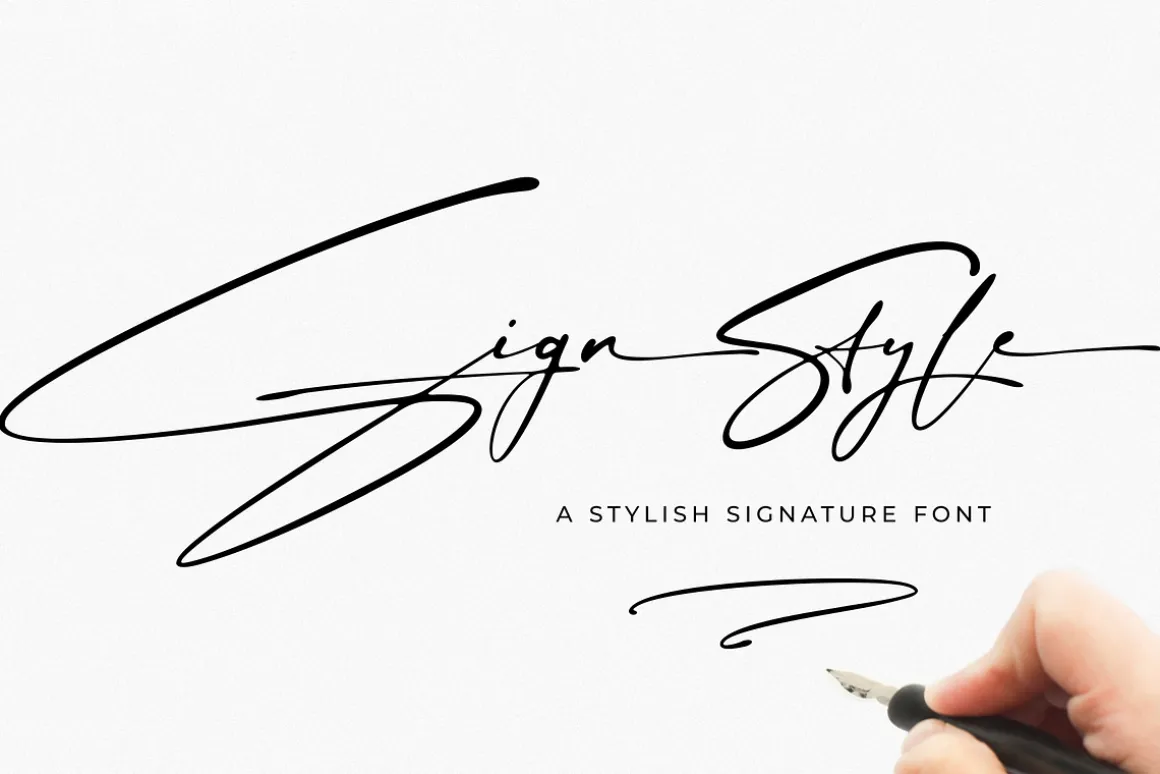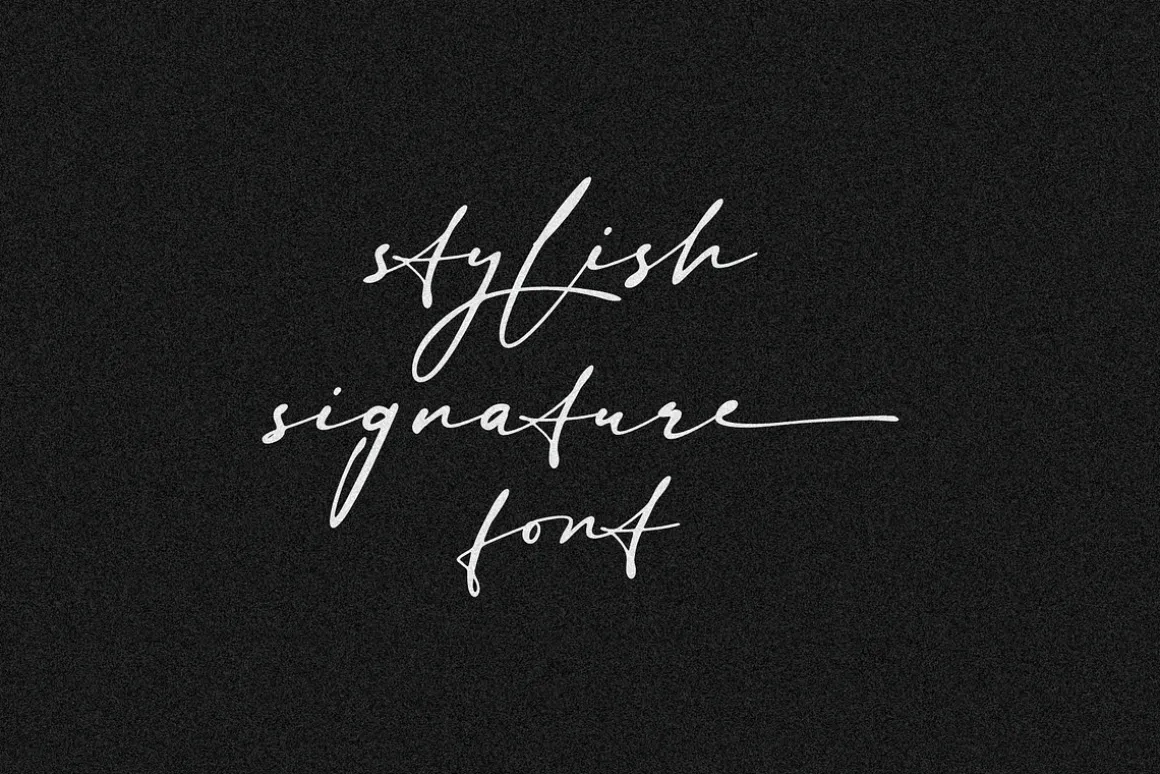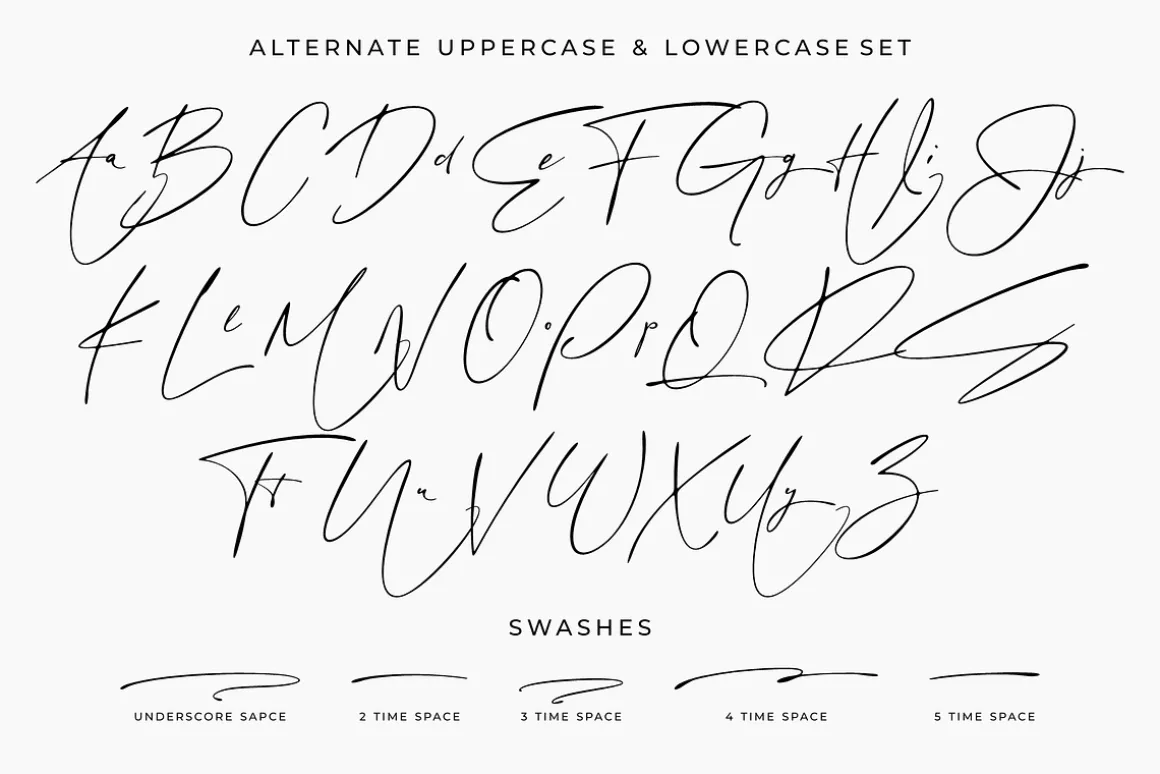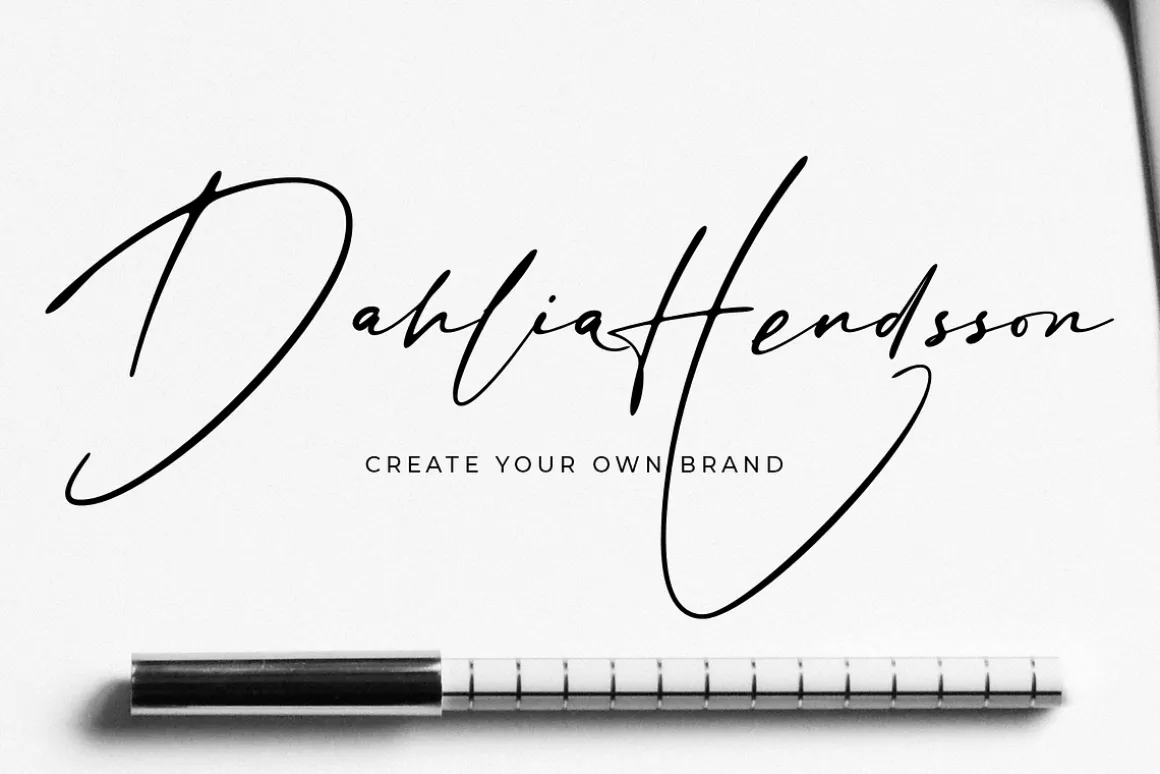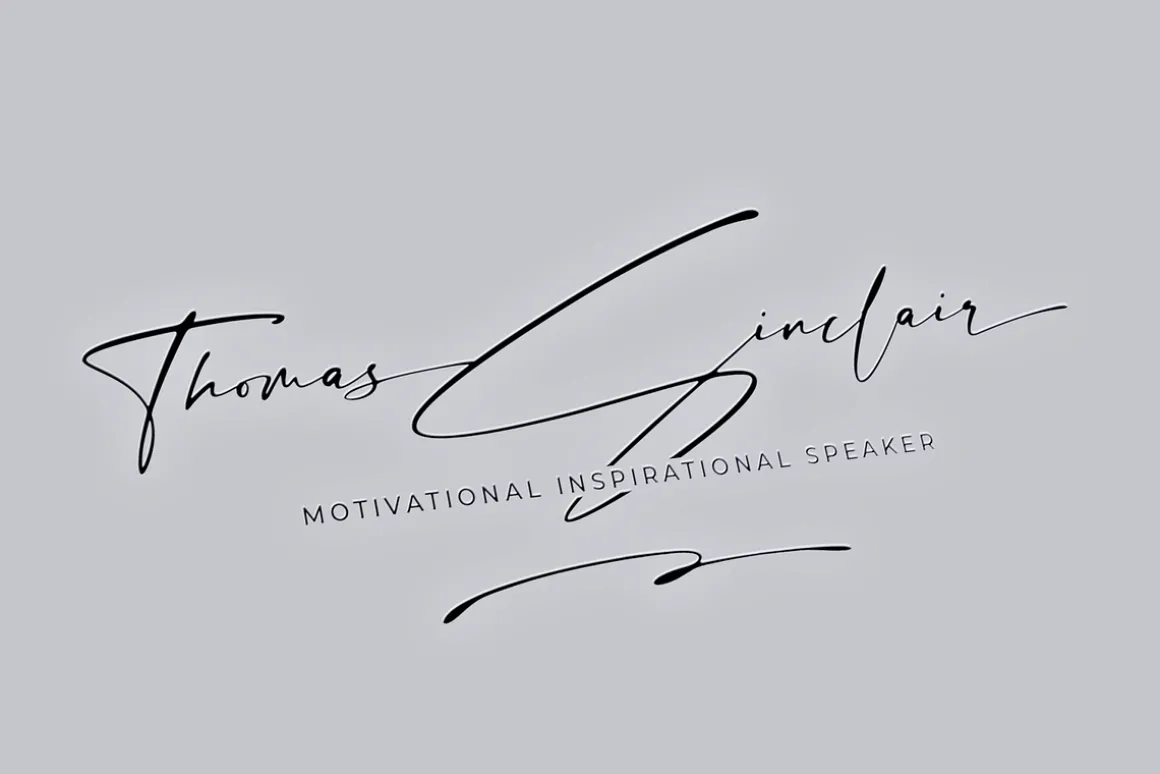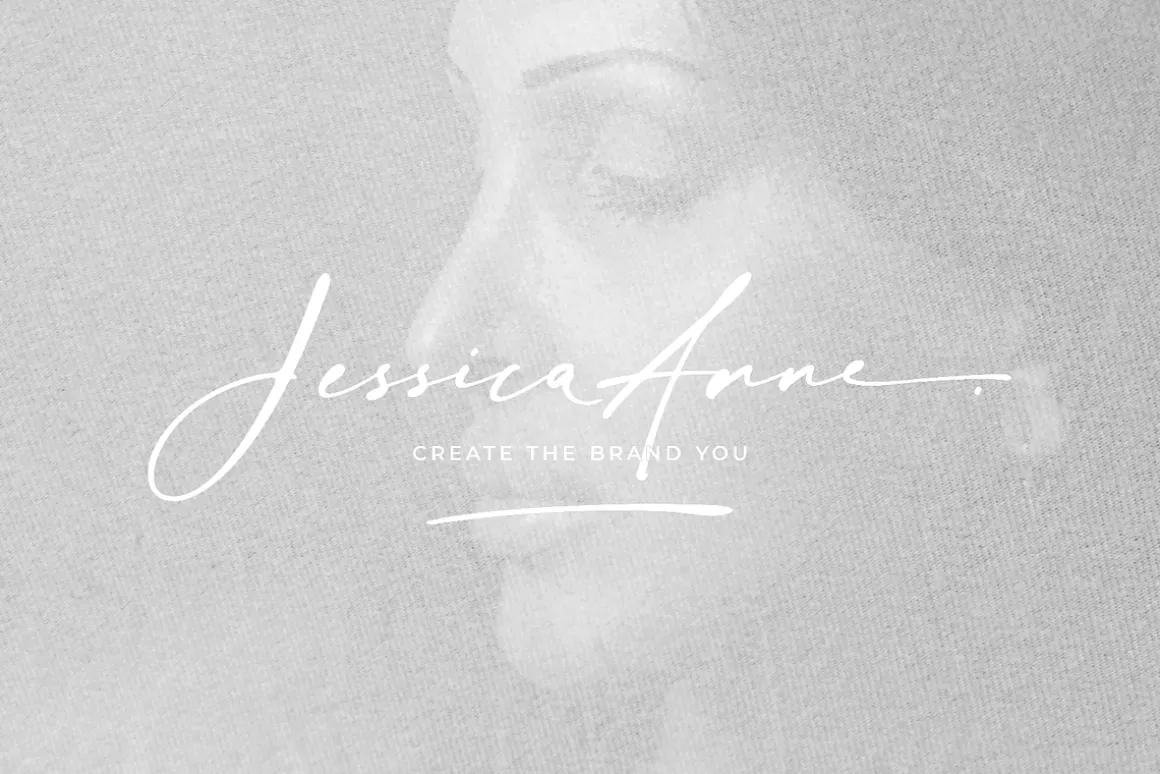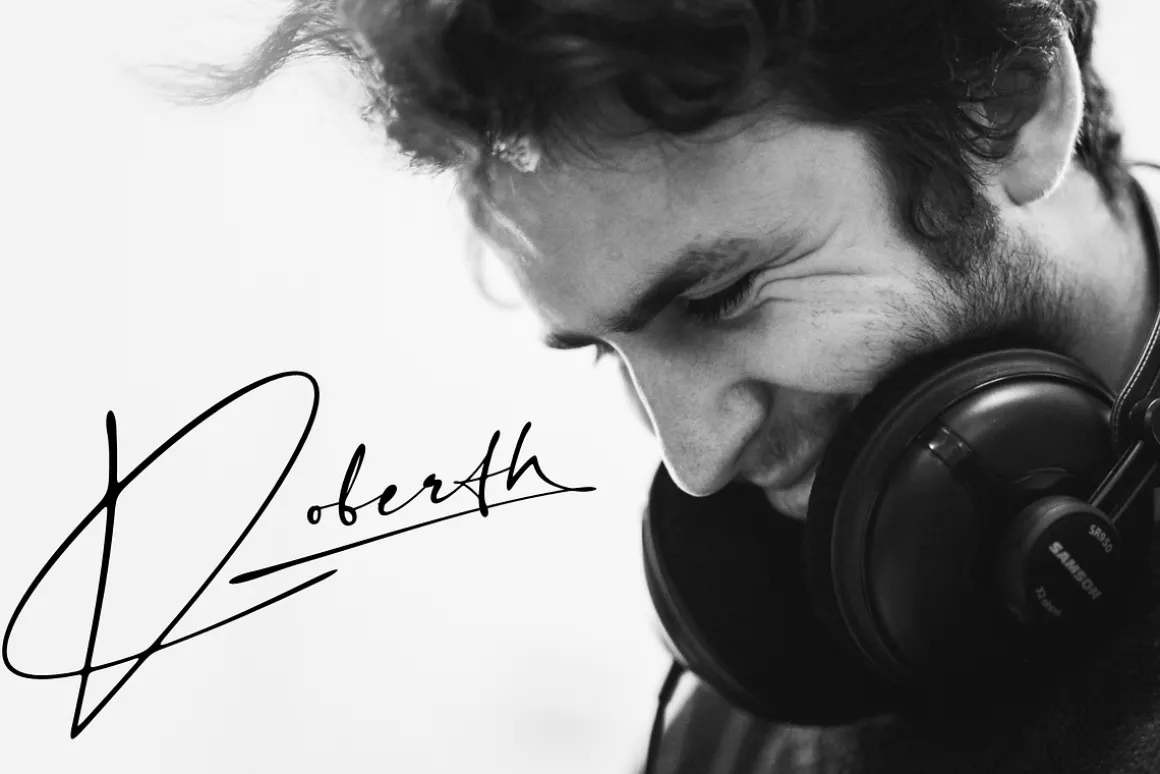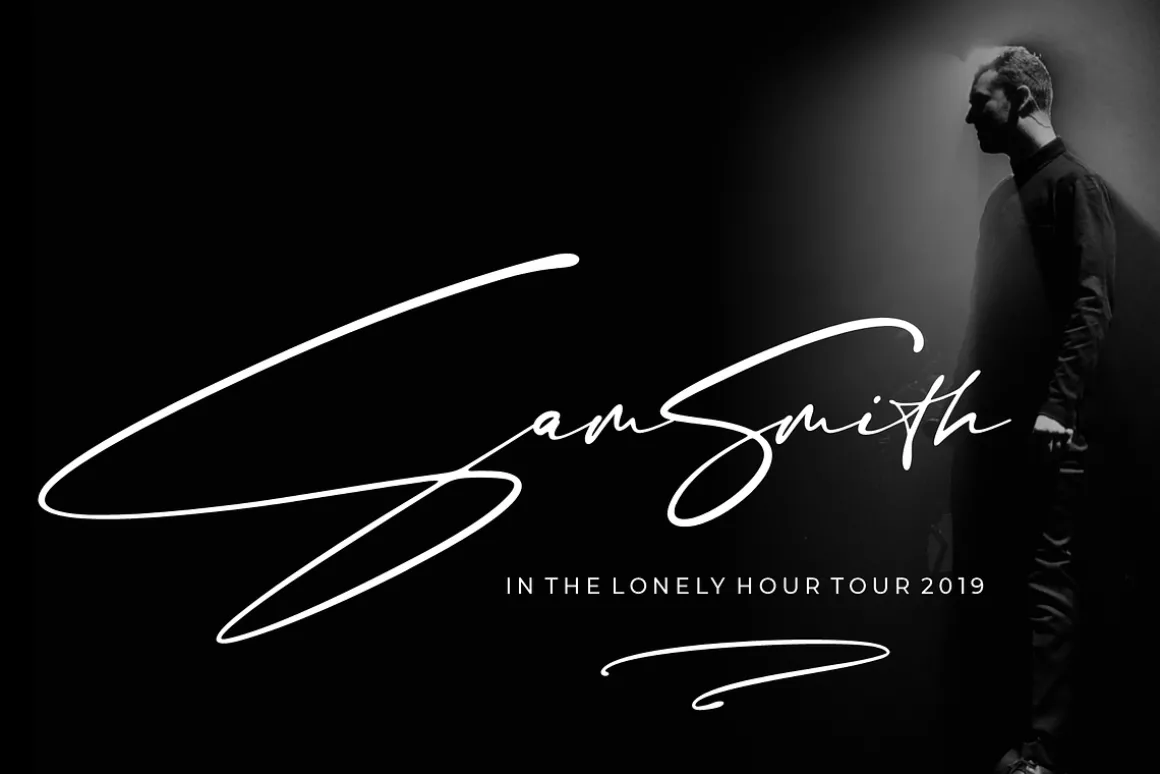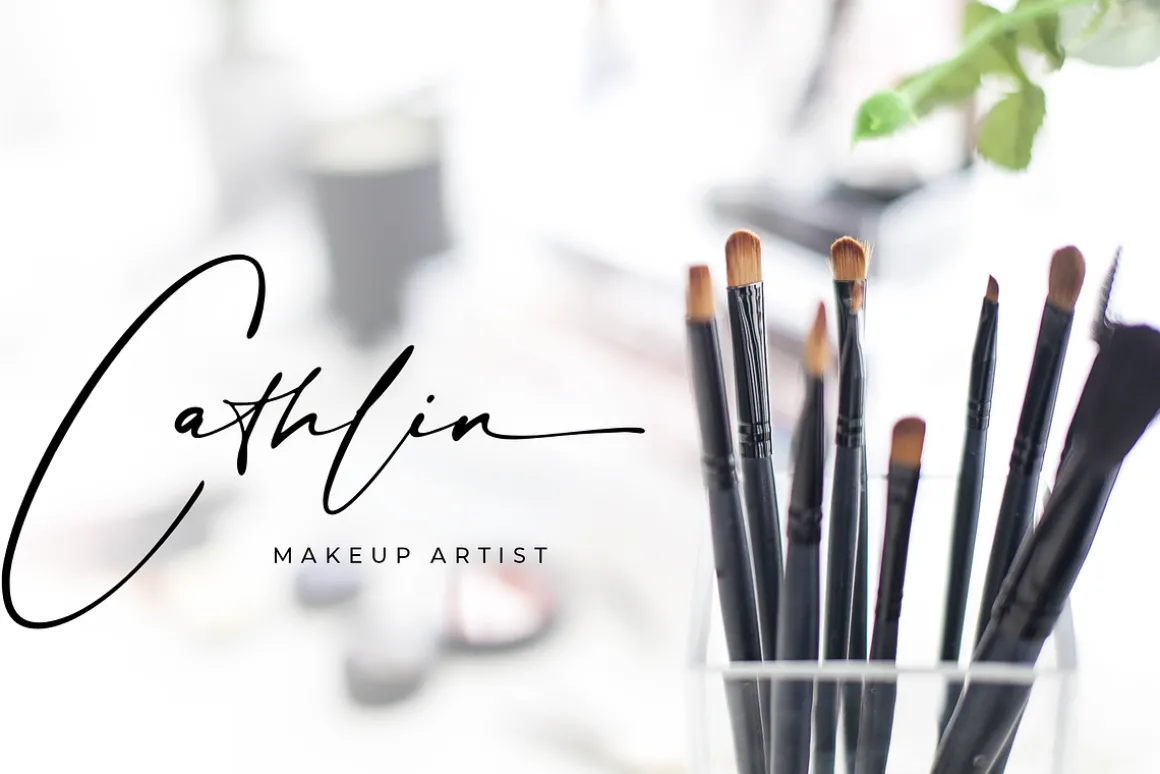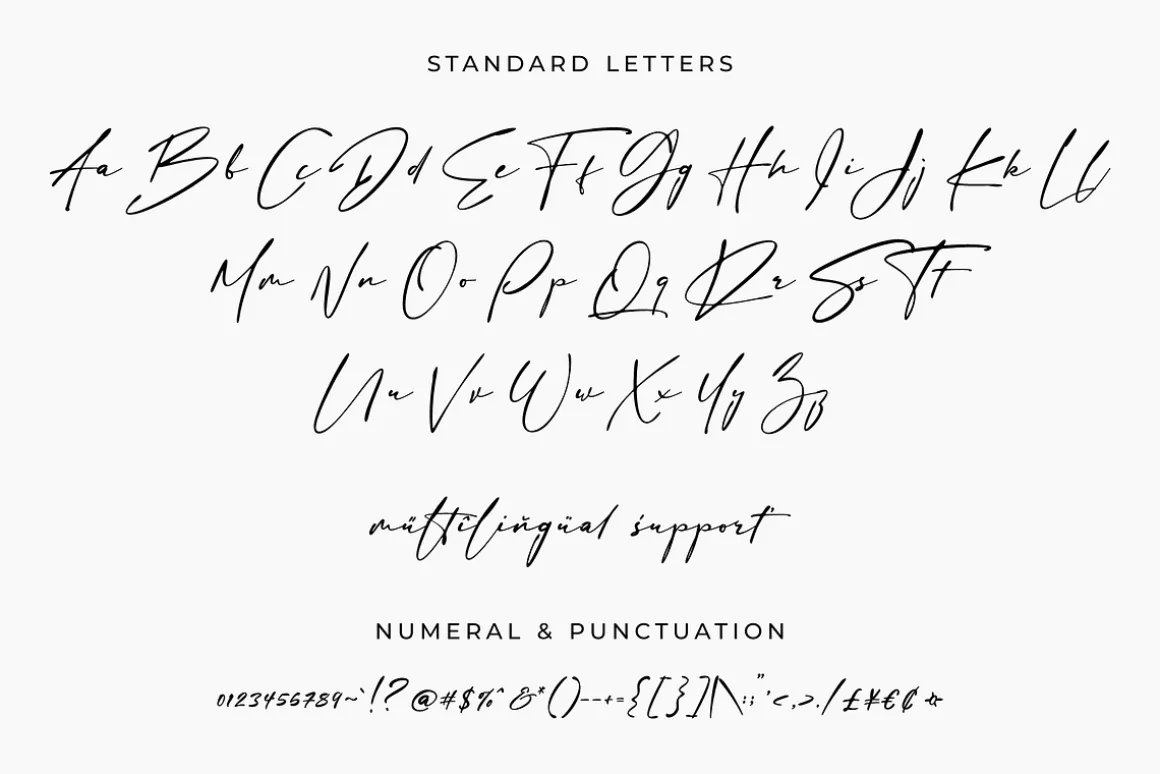
Bring your business to life with Sign Style – an elegant signature font, created by a passionate designer. The font combines a personal, hand-drawn feel with modern design, making it perfect for signature logos, branding, packaging, and advertising. Sign Style font has been designed in such a way that capital initials can be easily used at the beginning of a sentence to add a natural signature feel. This is a unique font that can make your signature brand stand out from the crowd while keeping it personal and friendly.
Sign Style features:
- A full set of upper & lowercase characters
- Numbers & punctuation
- 35 Gorgeous ligatures
- A full set of alternate uppercase characters
- Lowercase ending swashes
- Lowercase alternates characters
- Multilingual symbols